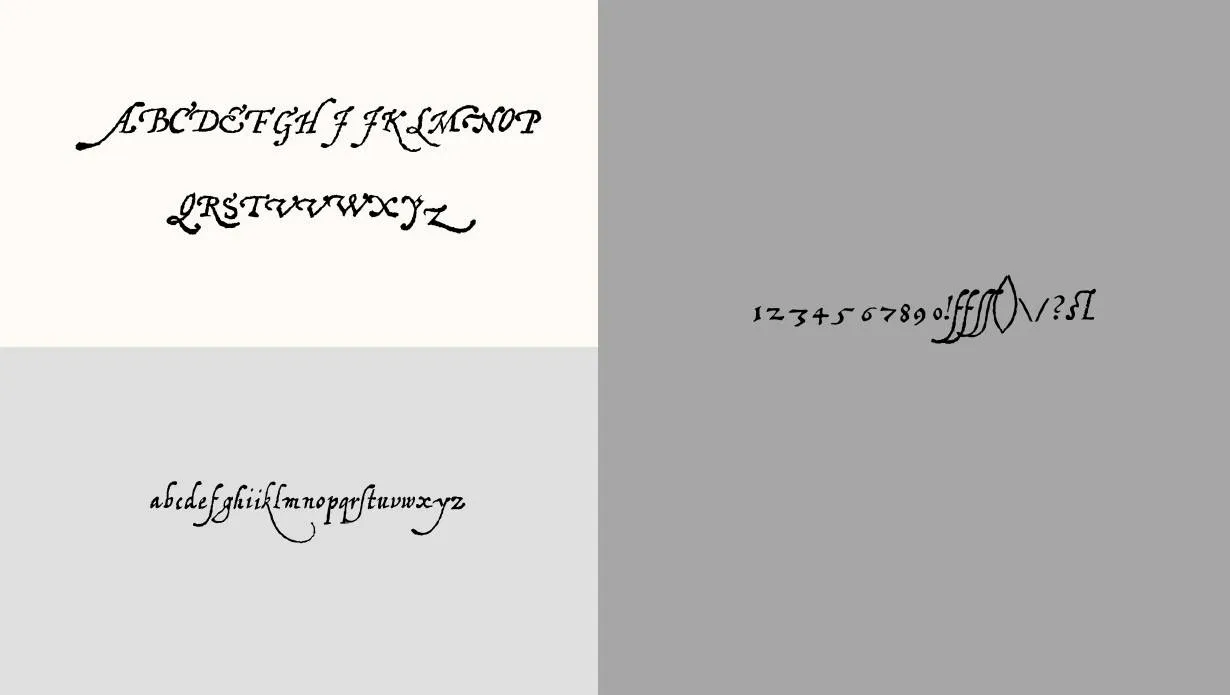
The William Shakespeare WF Font has a classic and elegant design. Its traditional, decorative letters bring a touch of sophistication to any text.
This font is often used in literature-related designs or formal invitations, evoking a sense of history and grace. Its timeless appearance makes the text look dignified and refined. Whether used in book covers or event announcements, this font adds a sense of class and elegance to the writing.